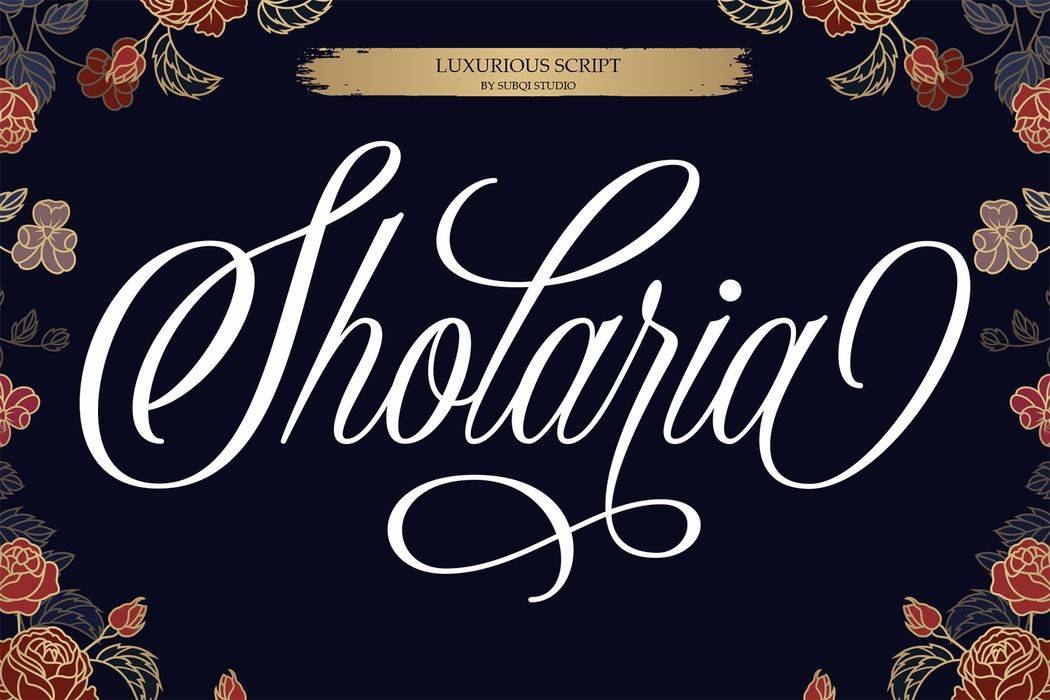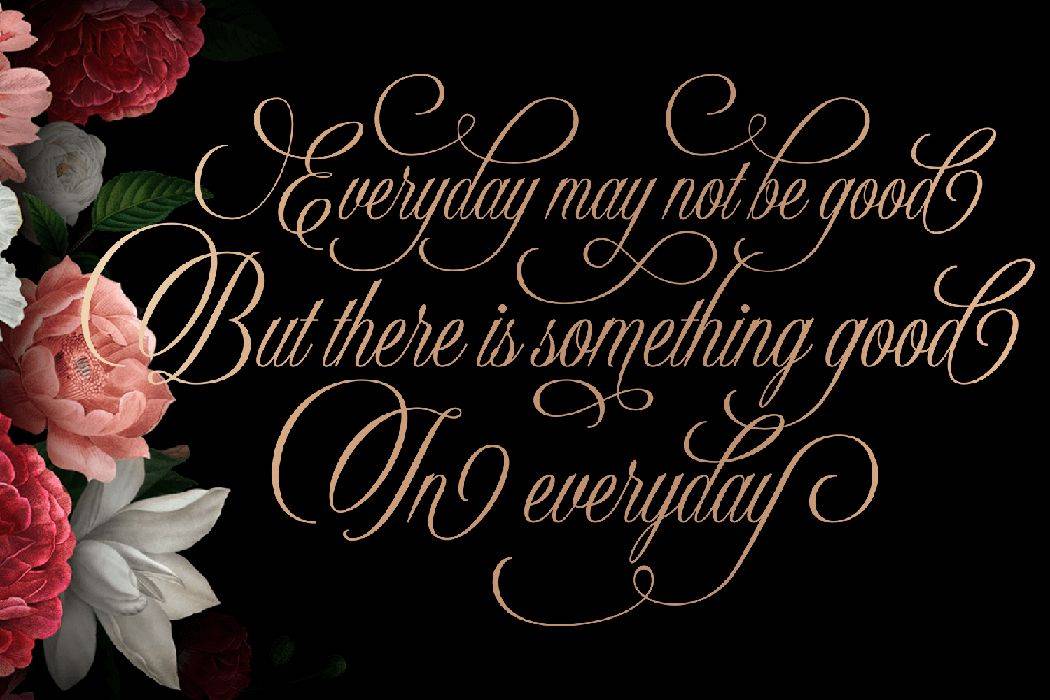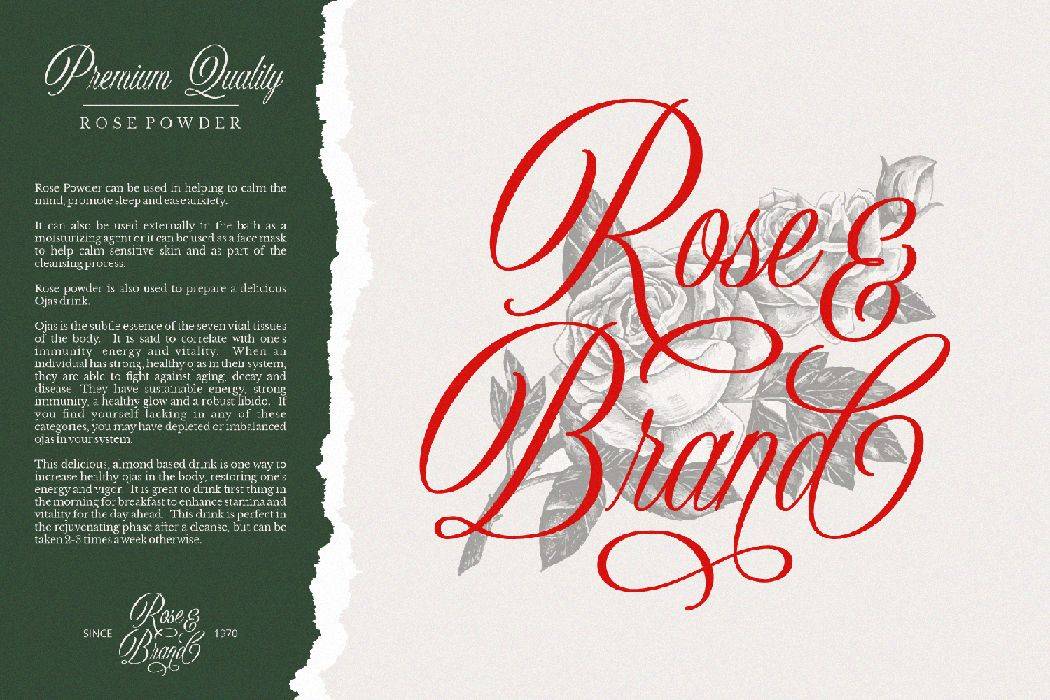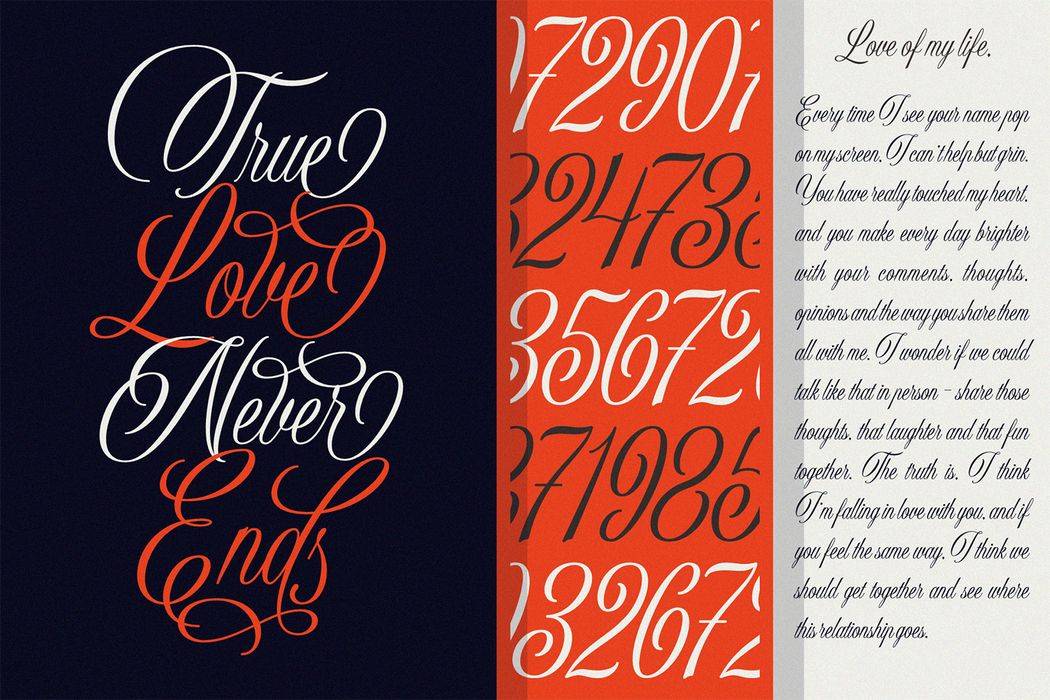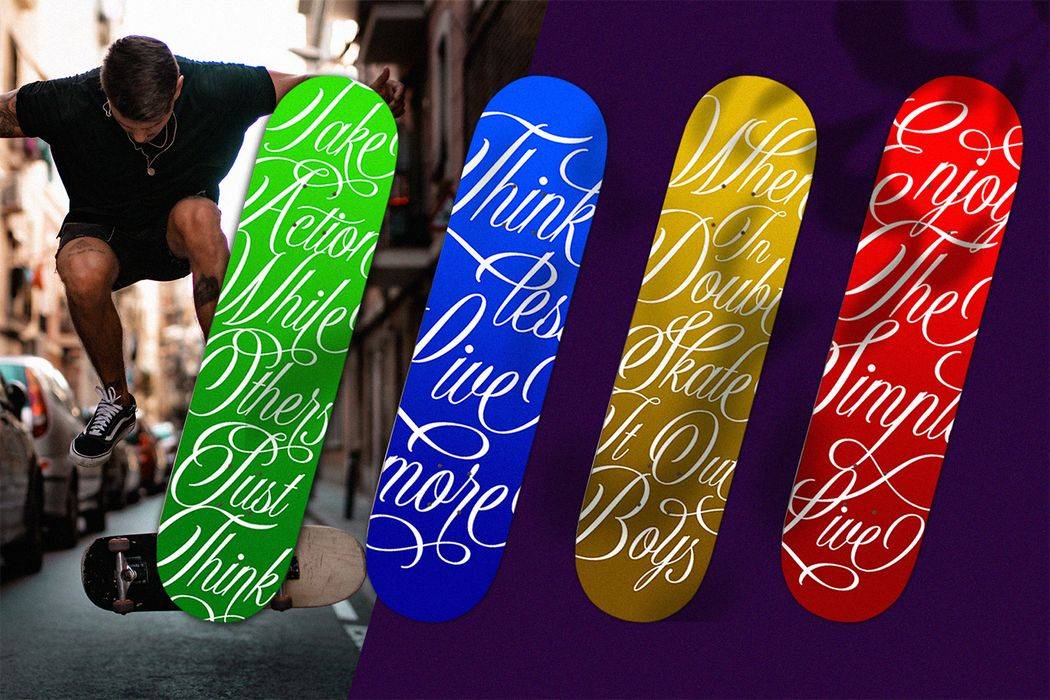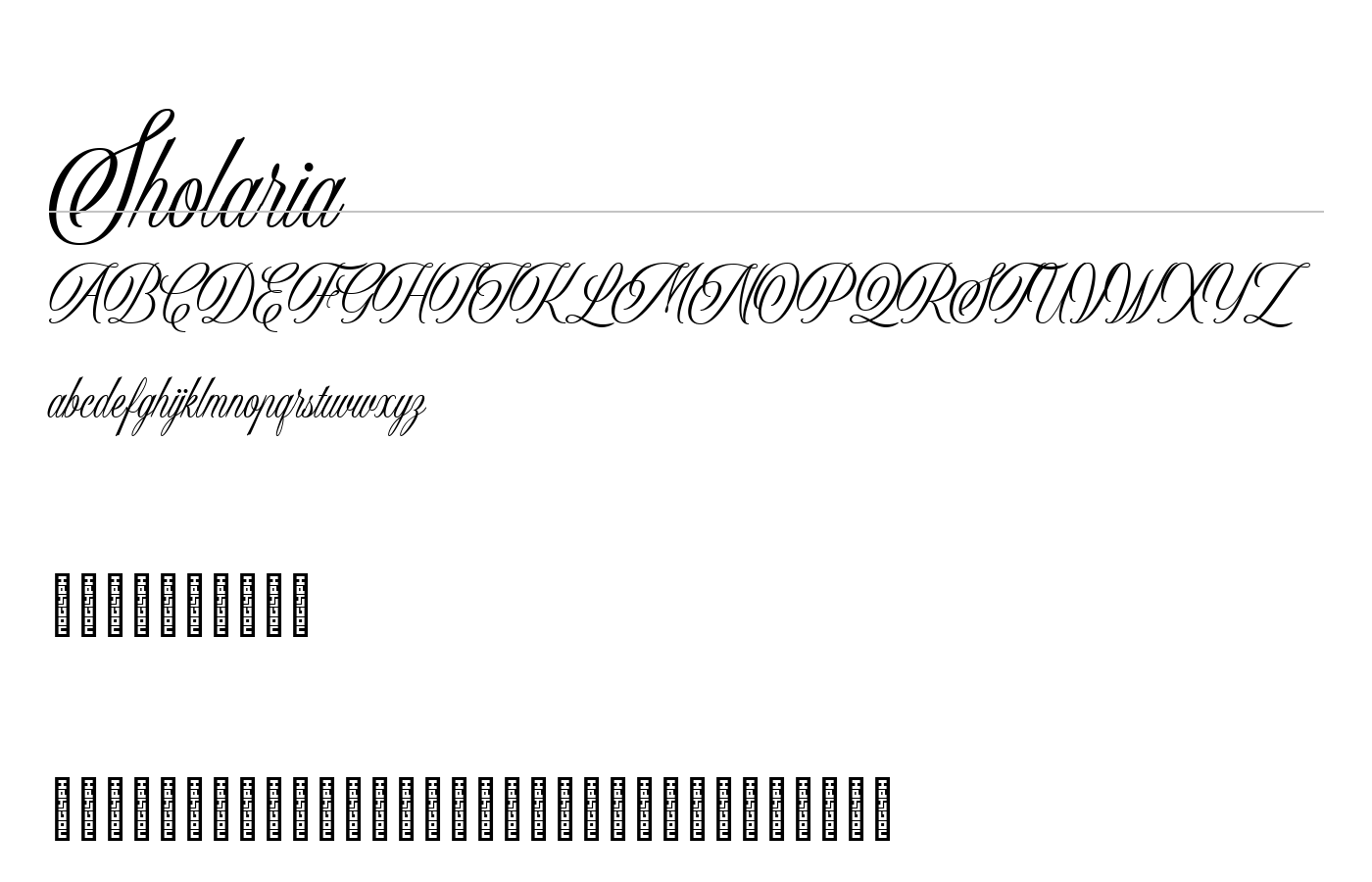
Sholaria is a delicate and elegant script font characterized by thin, flowing strokes and graceful, connected letterforms that evoke a refined, sophisticated style. Its slender and slightly compressed appearance, combined with high contrast and smooth curves, makes it ideal for luxury branding, wedding invitations, and elegant headlines where a classy, timeless feel is desired. This font works best in designs that call for a feminine, graceful touch with a sense of exclusivity and charm.
Sholaria Font
About Sholaria Font
| Font family | Sholaria Font |
| Designer | Amir Subqi Setiaji |